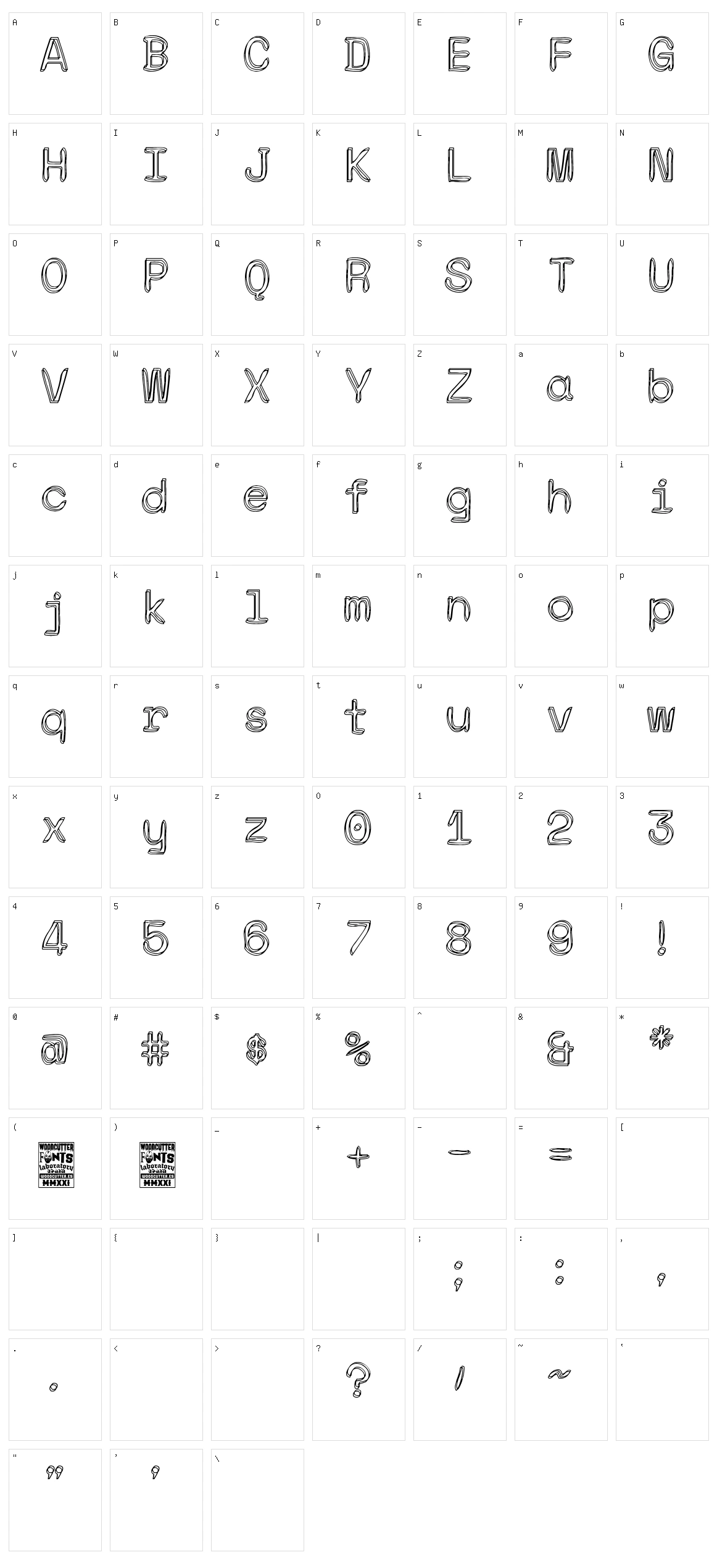
The free font The Moonlight Fraternity is carefully designed by Woodcutter, showcasing a thoughtful balance of creativity and usability and falls under the Distorted font style. When you download the ZIP file, it contains only 103.6 KB of font files, making it lightweight and quick to download. Please review the license details below to understand permitted usage and distribution rights. If license information is not available, we recommend using this font for personal projects only or contacting the author directly for commercial usage permissions.